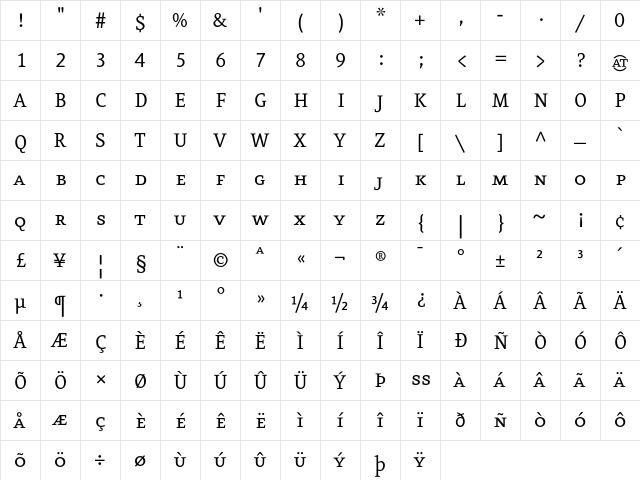
Eureka SmallCaps
Design Context for Eureka Typeface
Eureka offers clean, dependable letterforms without strong stylistic allegiance, making it a practical choice for designers who need flexibility.
Pro Tip: Pair Eureka with a font of contrasting weight or personality to build a more expressive typographic hierarchy.